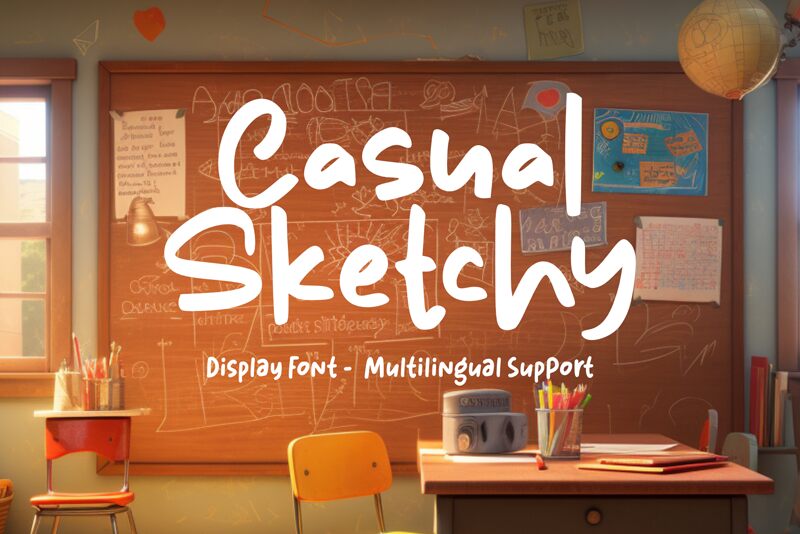
Casual Sketchy
Casual Sketchy font, designed by DumadiStyle, brings the charm of handwritten style to your projects. Its playful and organic strokes exude an informal yet refined aesthetic, making it perfect for creative and personal use. The font's unique characteristics capture a laid-back vibe that's ideal for designs seeking a touch of whimsy and authenticity.
Whether you're crafting invitations, designing graphics, or working on branding projects, this free font offers versatility and flair. Casual Sketchy's appeal lies in its ability to blend seamlessly with casual and innovative themes.